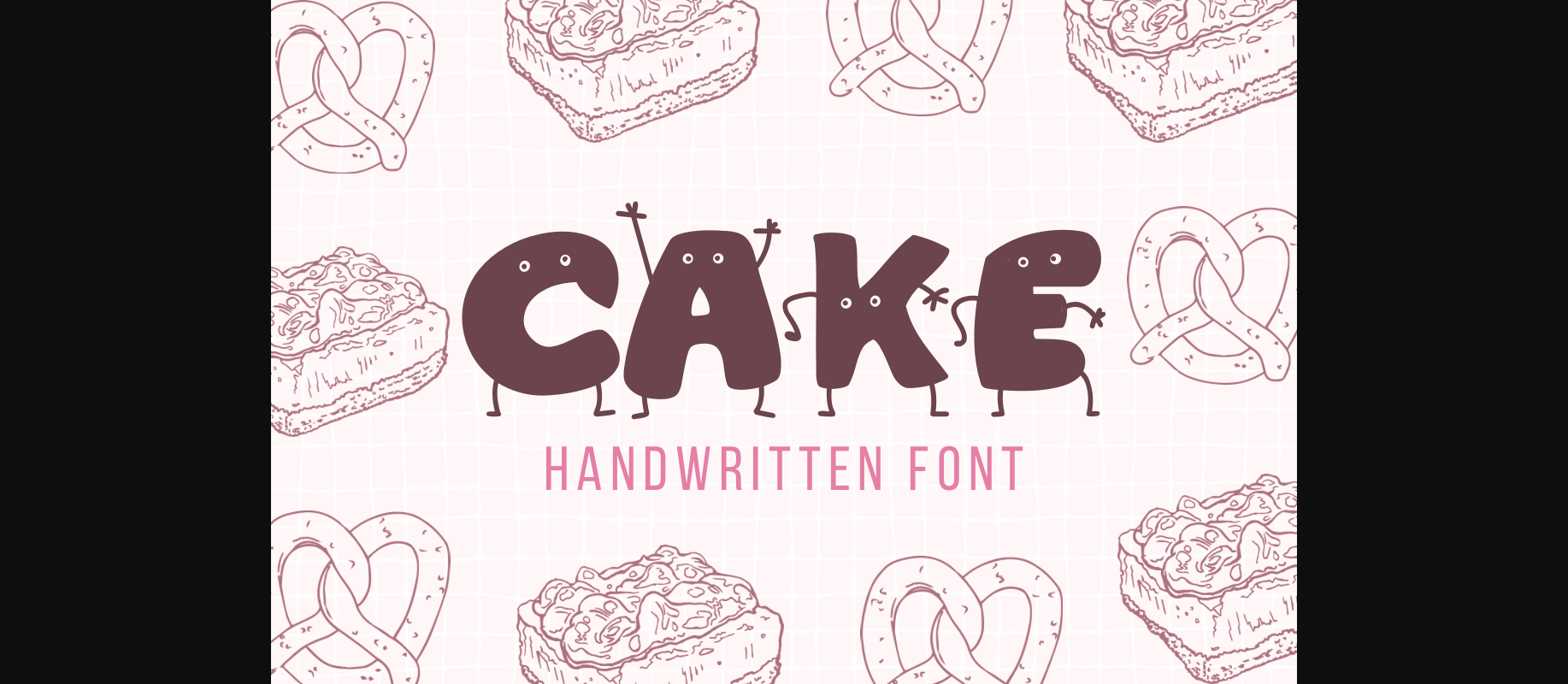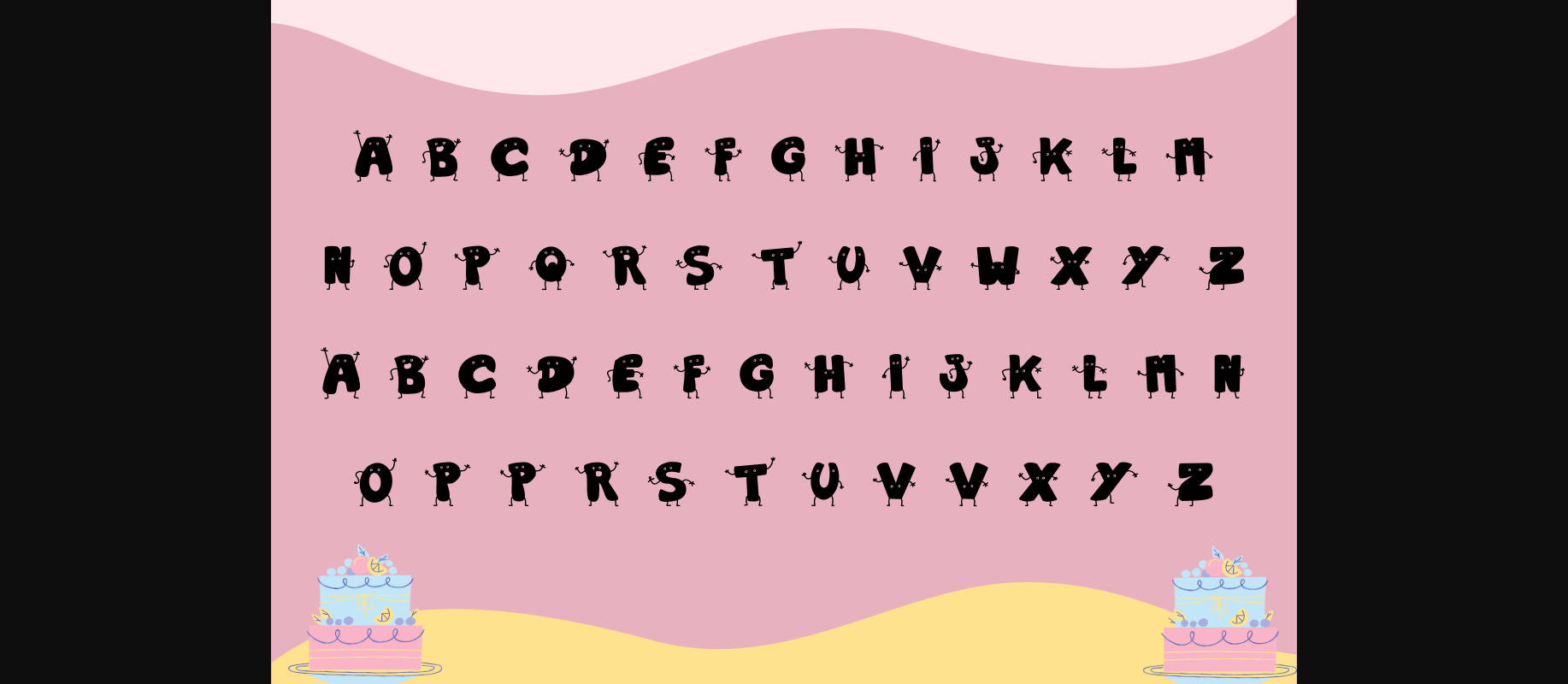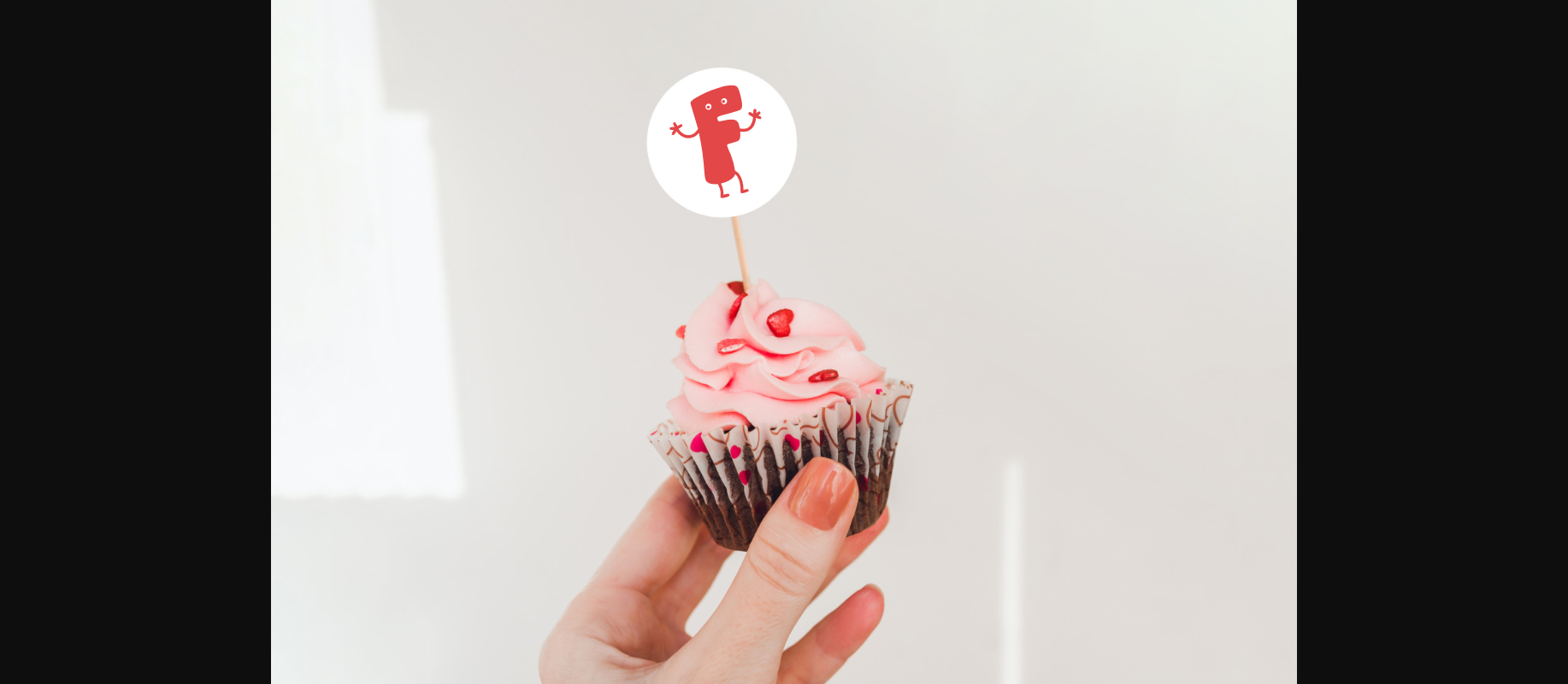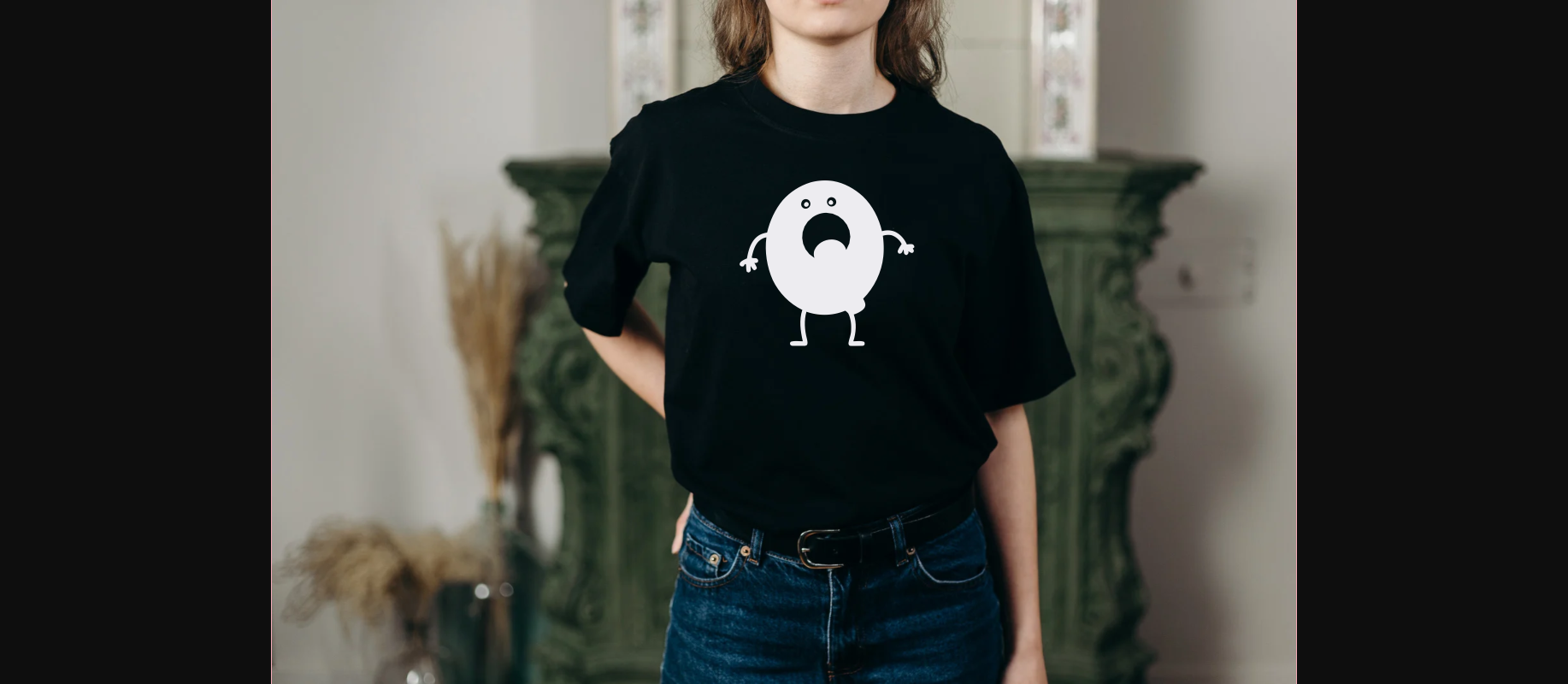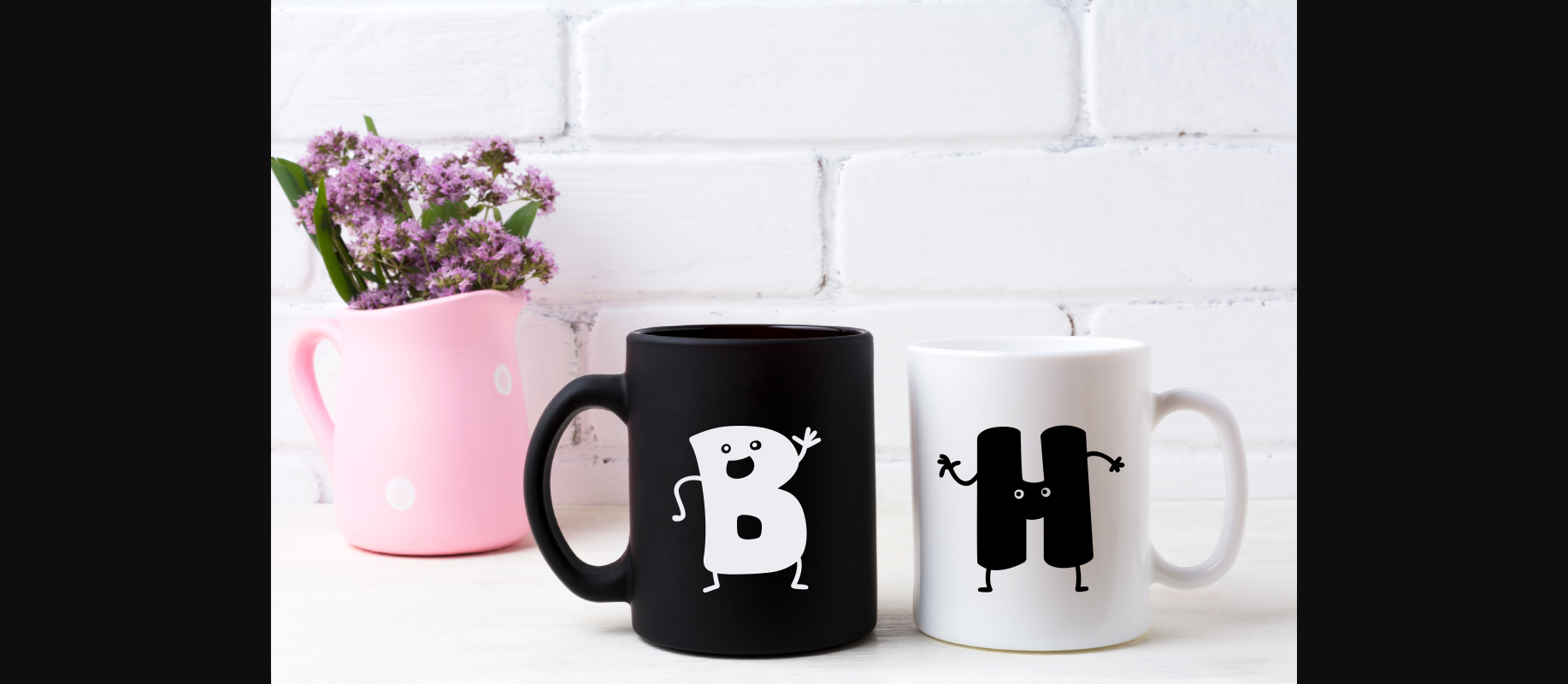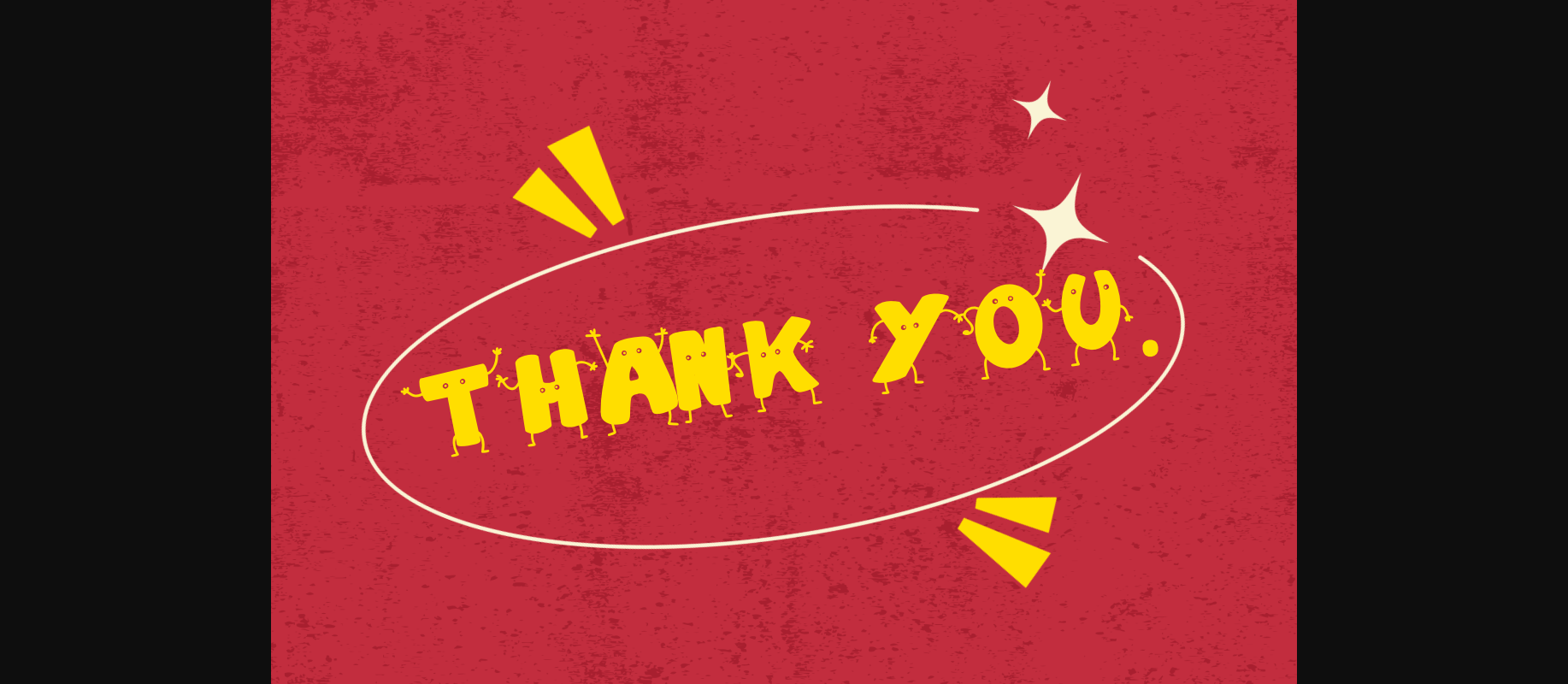
Cake Font
About Cake Font
Cake is a delightful confection of whimsy and charm. Its playful characters dance across the screen or page and are perfect for celebratory designs, invitations, and birthday cards. Cake adds a sweet touch to any project, making it a treat for the eyes.